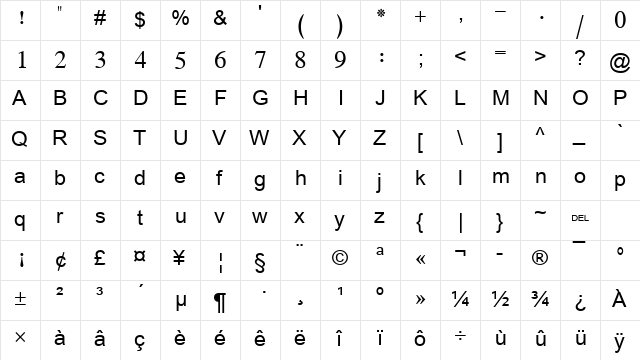
Arabic Transparent Regular
Design Context for Arabic Transparent Typeface
Arabic Transparent is a composed and adaptable typeface that performs quietly and consistently across a wide range of design contexts.